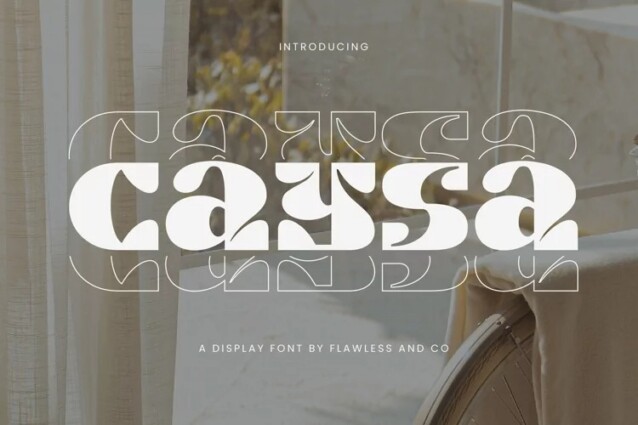
Caysa Font
Caysa Font is a striking display font that seamlessly blends retro aesthetics with a touch of modern design. Unveil the extraordinary with “Caysa,” an exquisite display font that redefines elegance with its distinct and unique design.
There’s some connected letters and some alternates that suitable for any graphic designs such as branding materials, t-shirt, print, business cards, logo, poster, t-shirt, photography, quotes .etc